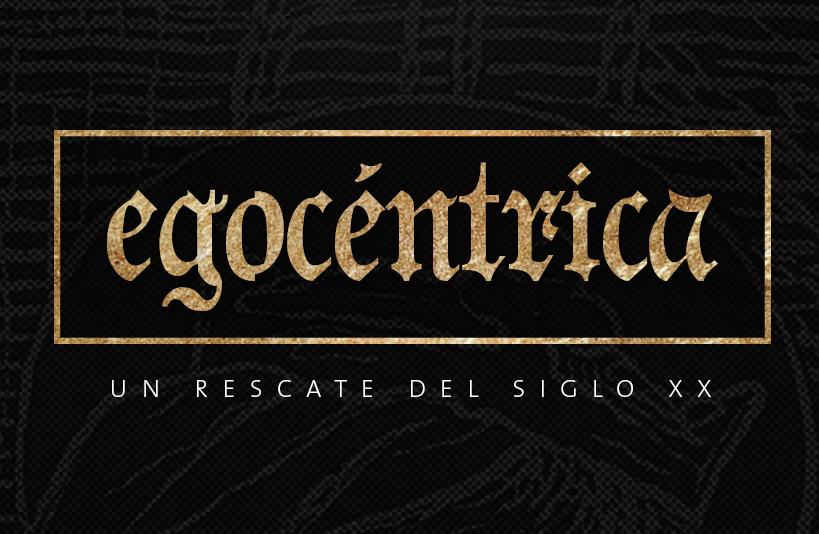
EGOCÉNTRICA Font
Introducing to you a new gothic font, EGOCENTRICA designed and shared by Gabriel Espinosa.
EGOCENTRICA Font designed based on inspiration from the classic Gothic font, and the combination with modern design, bright … You can use it in many of his design projects, such as book design , print, logos and much more